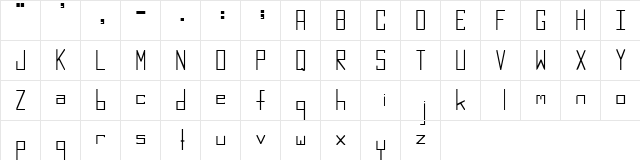
Boring Squared Thin
Design Context for Boring Squared Typeface
Boring Squared offers clean, dependable letterforms without strong stylistic allegiance, making it a practical choice for designers who need flexibility. The delicate stroke weight brings airiness and refinement to layouts.